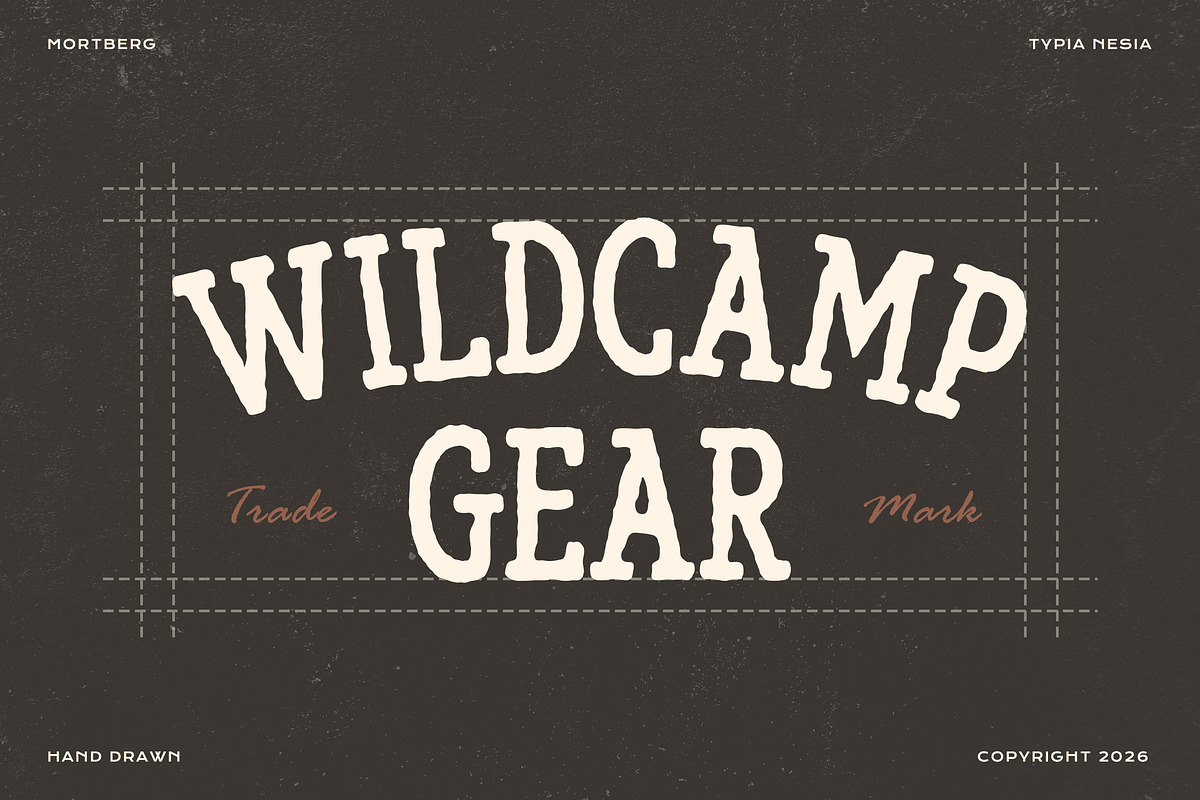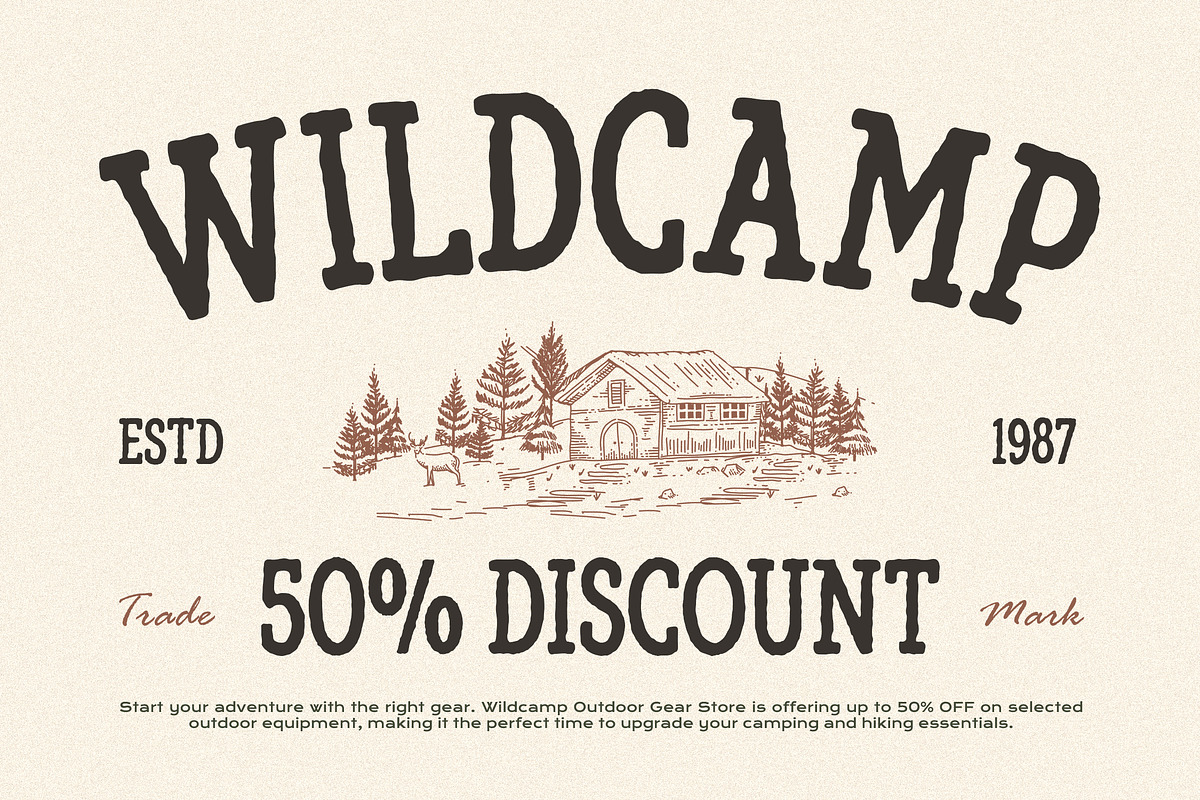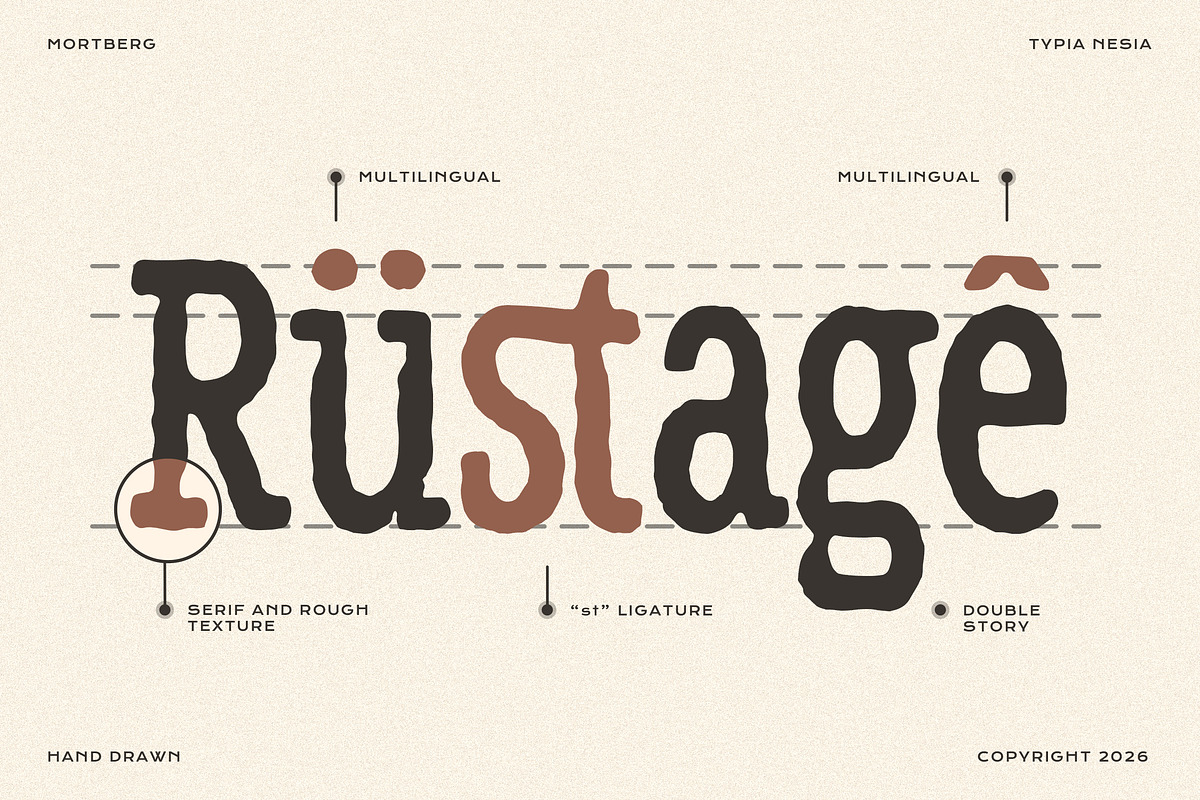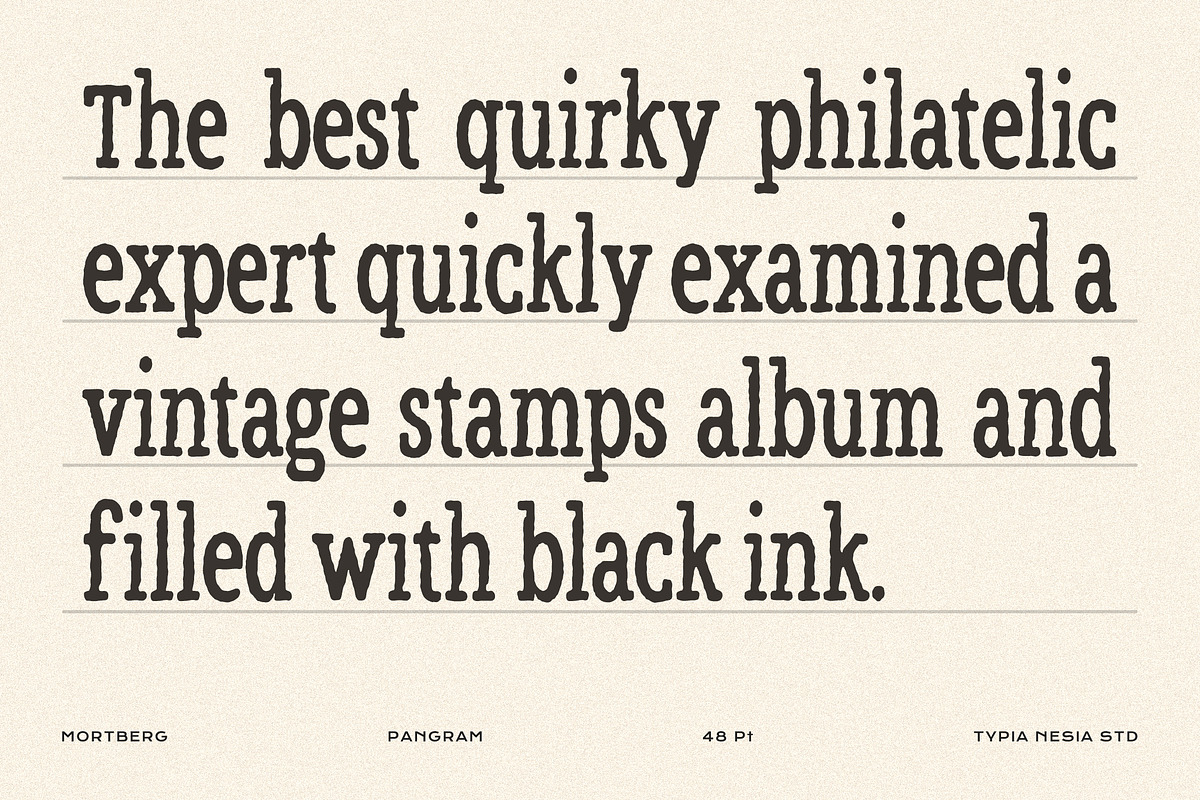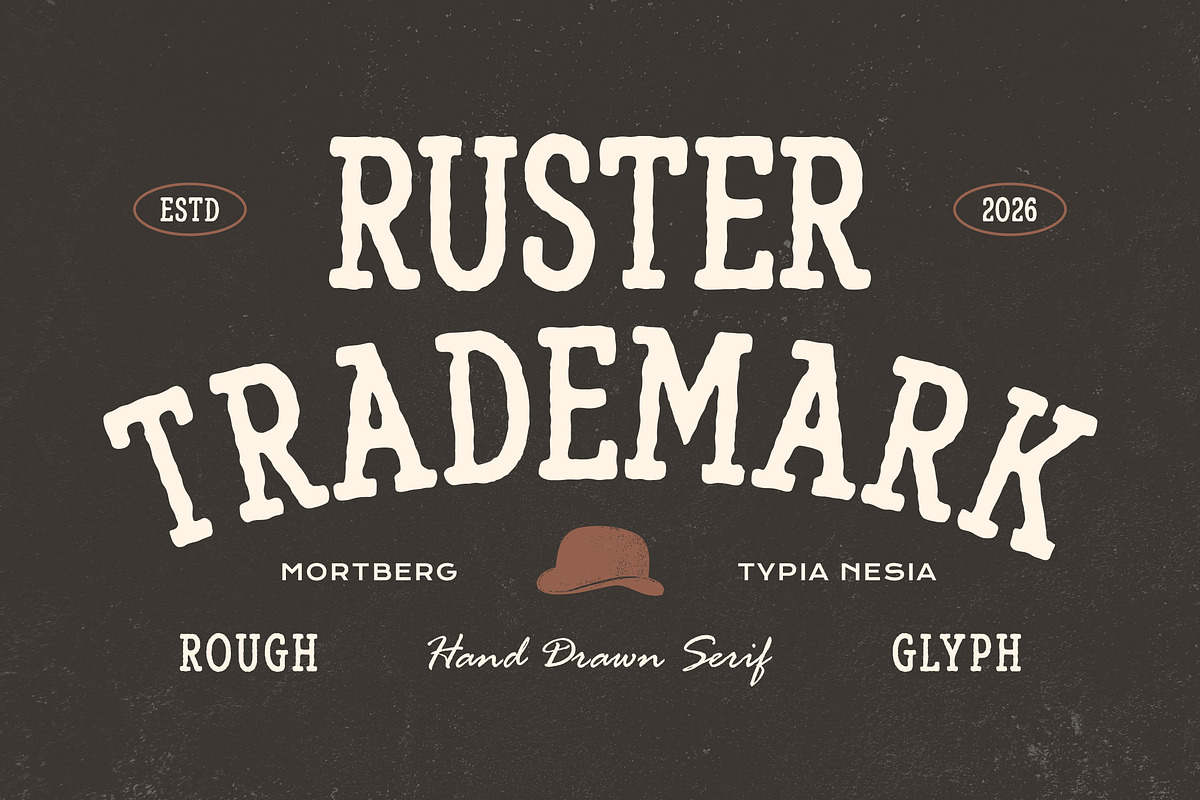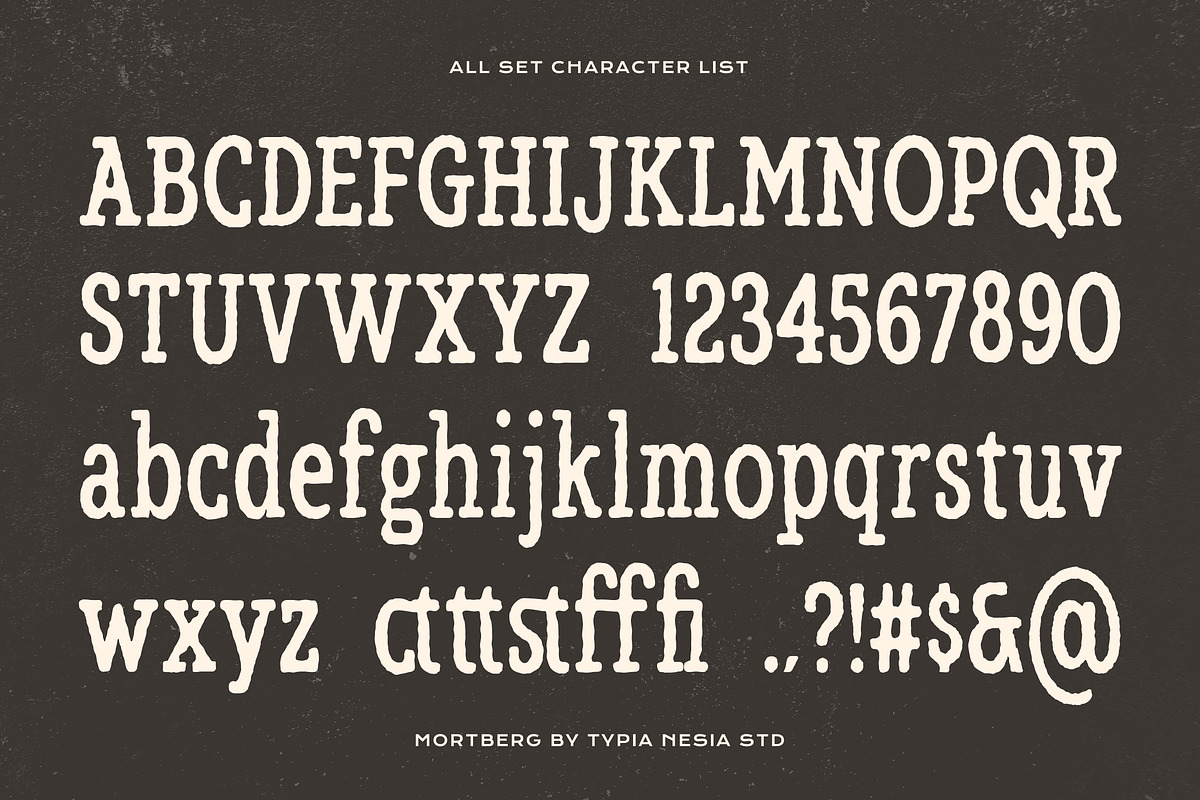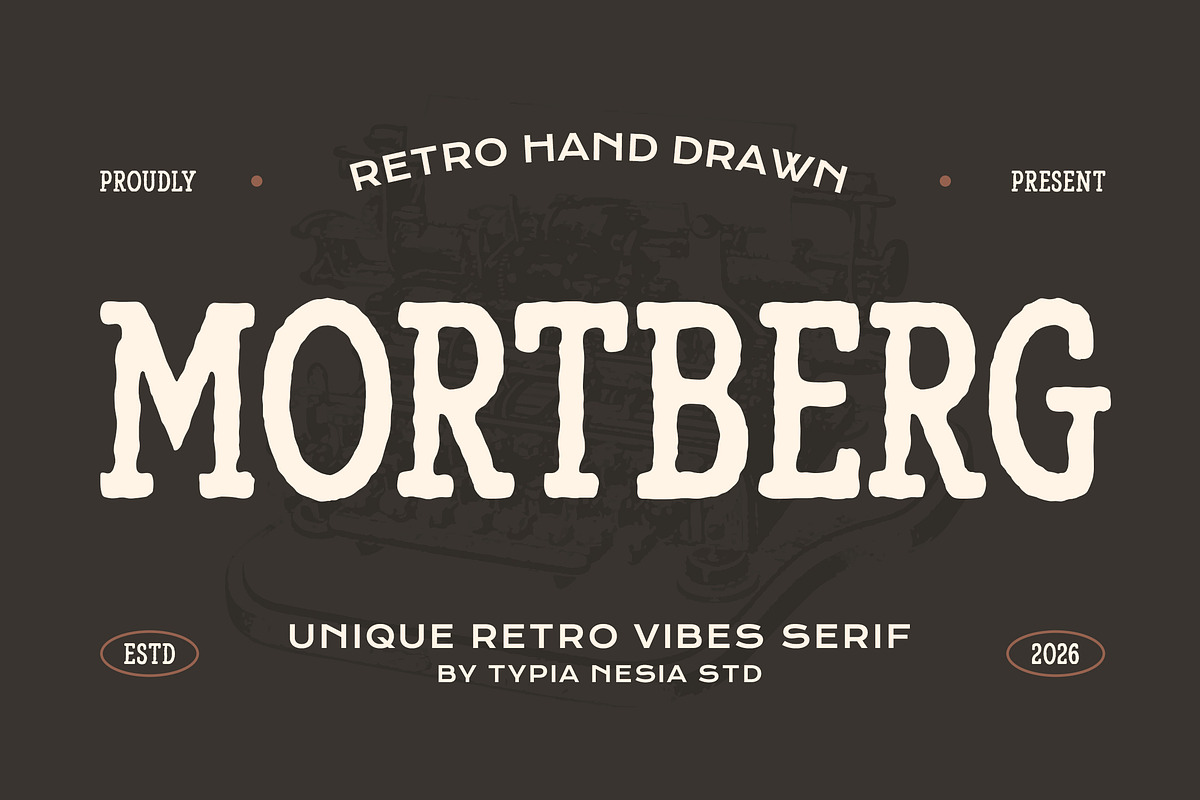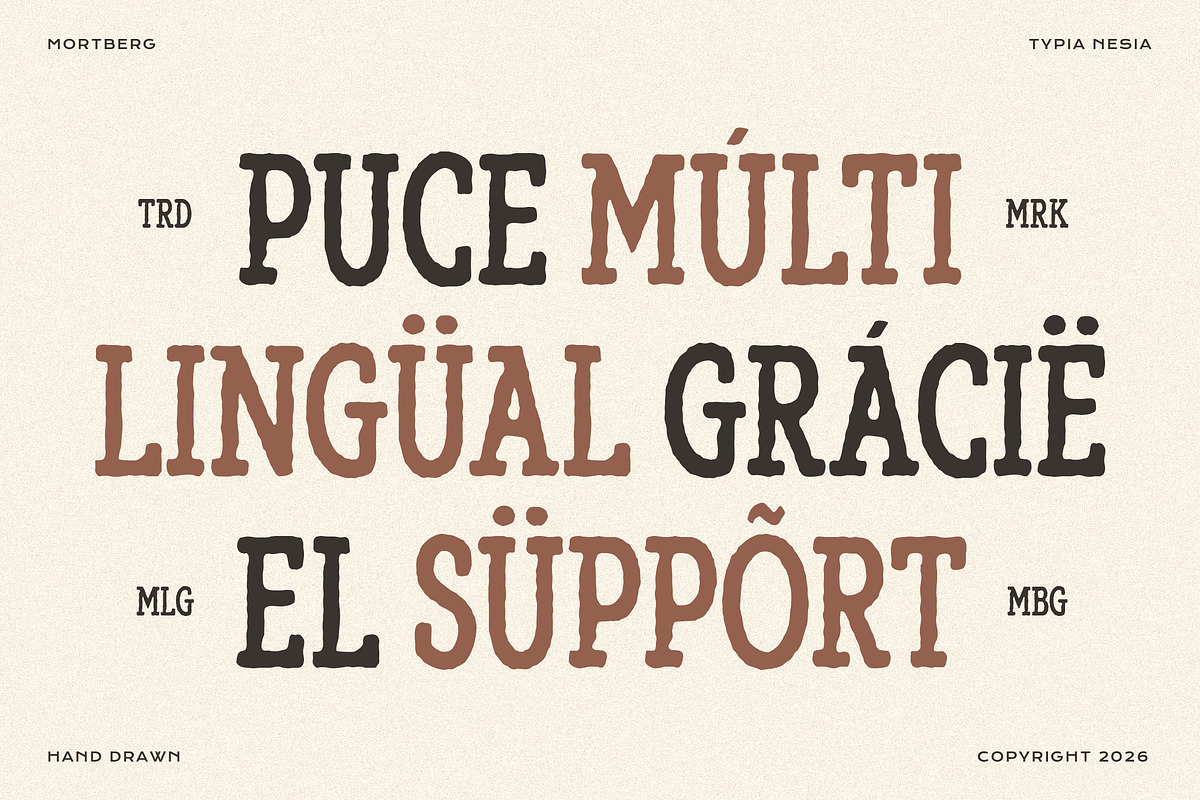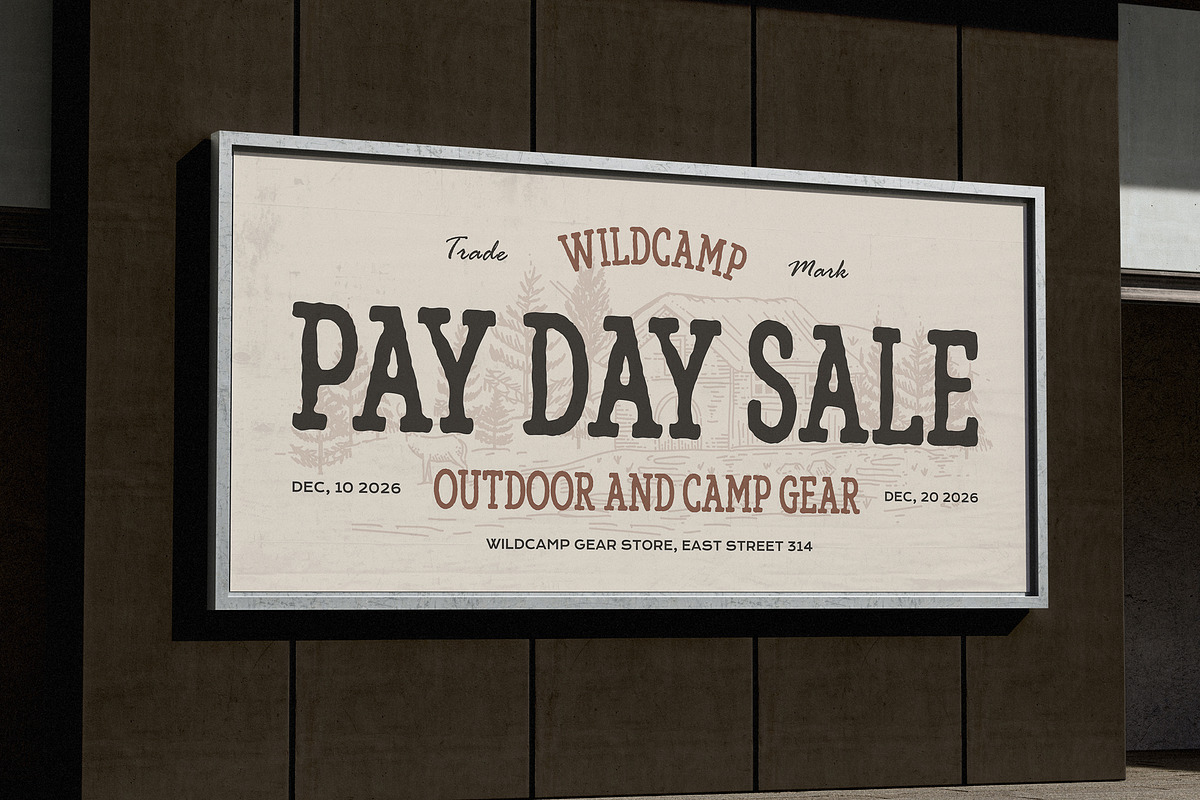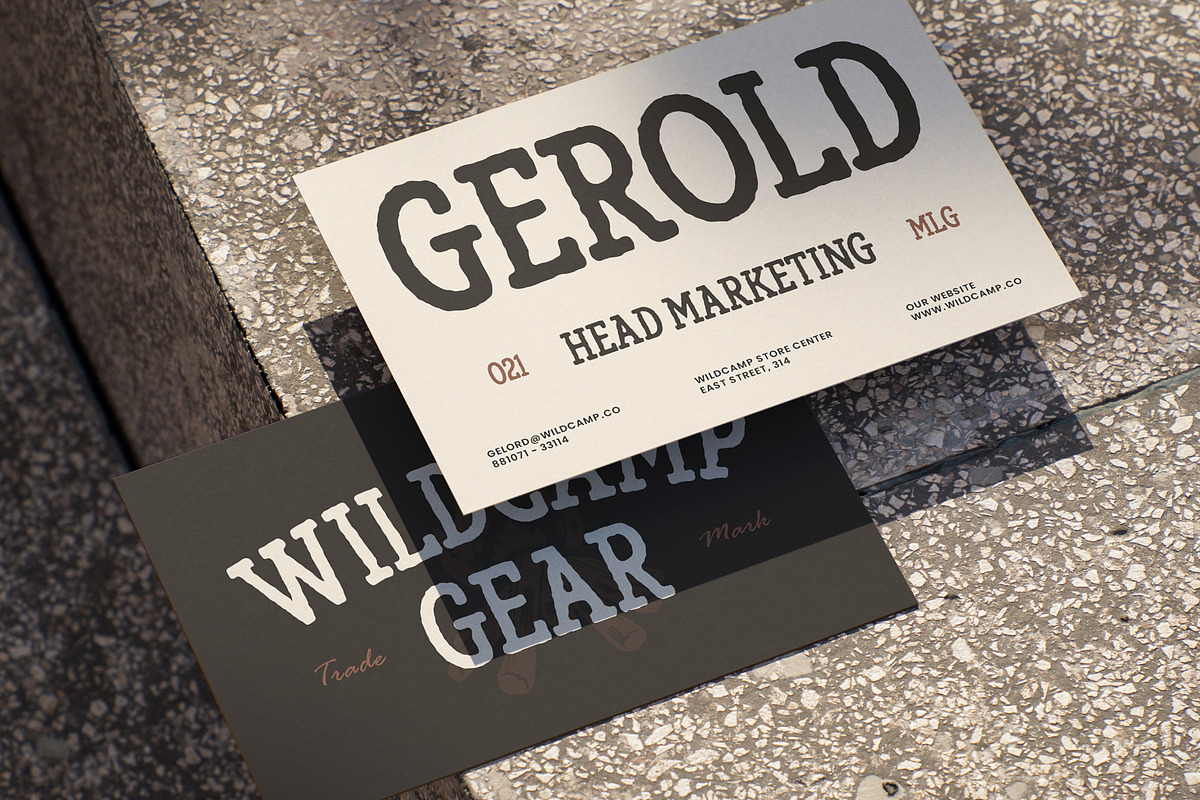
Mortberg – Rough Vintage Hand Drawn
Mortberg – Rough Vintage Hand Drawn Slab Serif - Outdoor Logo DIsplay Condensed Font
Mortberg is a rough vintage hand-drawn slab serif font crafted to deliver a bold, rugged, and authentic look. Featuring textured strokes and imperfect details, this typeface captures the essence of rustic and Western-inspired design. It is perfect for logo design, branding, packaging, posters, badges, outdoor or adventure-themed projects, and any project that needs a strong vintage character. Mortberg stands out with its rugged personality and classic Western vibe, giving your designs a distinctive edge that feels both raw and memorable.
Bring raw vintage character to your design with Mortberg.